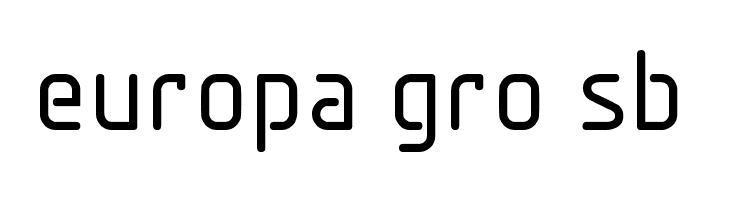
A textured, ornamental font with a stippled effect for an elegant look.
A tall, narrow font with consistent strokes and a modern, minimalistic design.
A chaotic, glitchy font with overlapping, distorted letterforms and a dynamic, scribbled style.
A dynamic, expressive script font with chaotic, overlapping strokes.
A playful, rounded font with smooth edges and consistent stroke width.
A playful, rounded font with smooth, consistent strokes and a whimsical style.
An edgy, gothic font with claw-like serifs and a bold, dramatic style.
A playful, handwritten font with smooth, flowing curves and interconnected letters.
A bold, modern sans-serif font with clean, geometric lines.
A bold, retro-inspired font with high contrast and playful curves.
A modern, geometric typeface with clean lines and smooth curves.
A modern, minimalist font with clean lines and geometric shapes.
A graceful script font with fluid, cursive lines and elegant flourishes.
A futuristic, geometric font with rounded edges and hollow interiors.
A bold, geometric font with rounded edges and a modern outline style.
A clean, monospaced font with a modern aesthetic and excellent readability.
A bold, geometric font with rounded edges and consistent width.
A bold, monospaced sans-serif font ideal for coding and headlines.
A modern, monospaced font with an extra light weight and geometric design.
A clean, extra-light italic monospaced font with a modern aesthetic.
A modern, monospaced italic font with medium contrast and clean lines.
A clean, monospaced font with a modern and geometric design.
A modern, light, and italic sans-serif font with a clean design.
A clean, monospaced font with geometric influences and consistent character width.
A modern, italic sans-serif font with medium contrast and balanced spacing.
A thin, monospaced font with a minimalist and modern design.
A thin, italicized monospaced font with a modern and minimalist design.
A futuristic, angular font with a geometric design.
A bold, distressed font with a grunge texture for impactful designs.
A modern, ultra-condensed font with tall, narrow letterforms and minimal stroke contrast.
A bold serif typeface with elegant, traditional characteristics and moderate contrast.